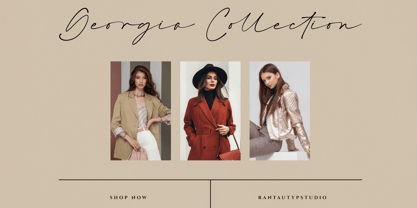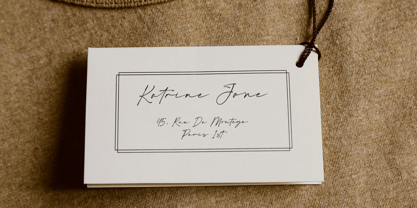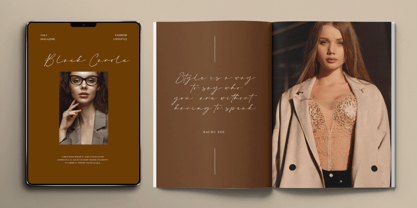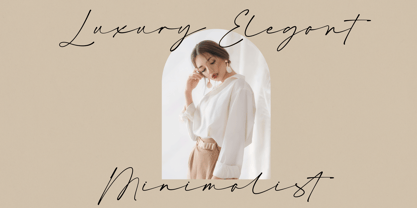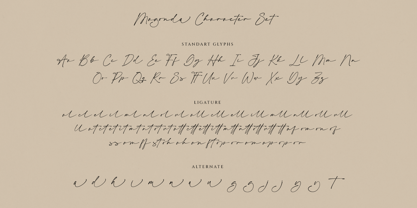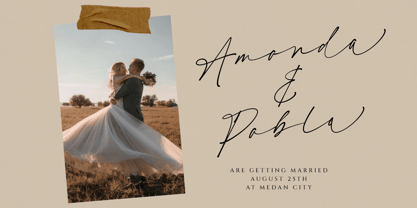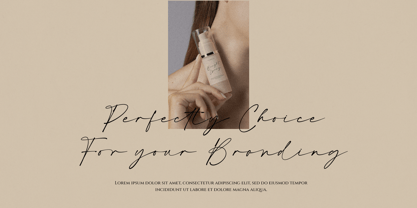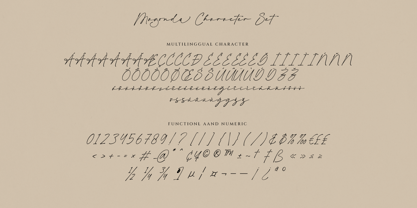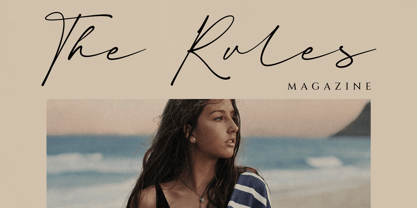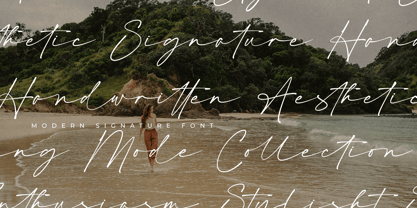
Magonda
by RantauType
The Magonda Font Family was designed by Yudi Pratama Chandra and published by RantauType. Magonda contains 1 styles. More about this family
Magonda is classy script font with stylish look. Magonda is a perfect choice for any creative endeavor, chic, lifestyle design such as logos, title, watermark on photography, cover, branding, display and magazine, wedding event, corporate brand, quotes, album cover, business card, business project, company branding and more project with handwritten taste.
• Standart Gylphs
• Numberial and Functional
• Ligature and alternate